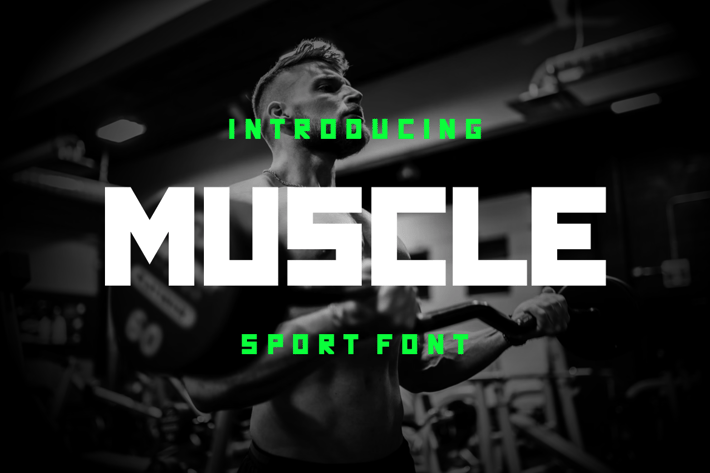
Muscle Font
Muscle Sport Font is unique . Ready to use for your design like labeling, clothing, movie sceen, poster, movie title, gigs, album covers, logos, and much more.